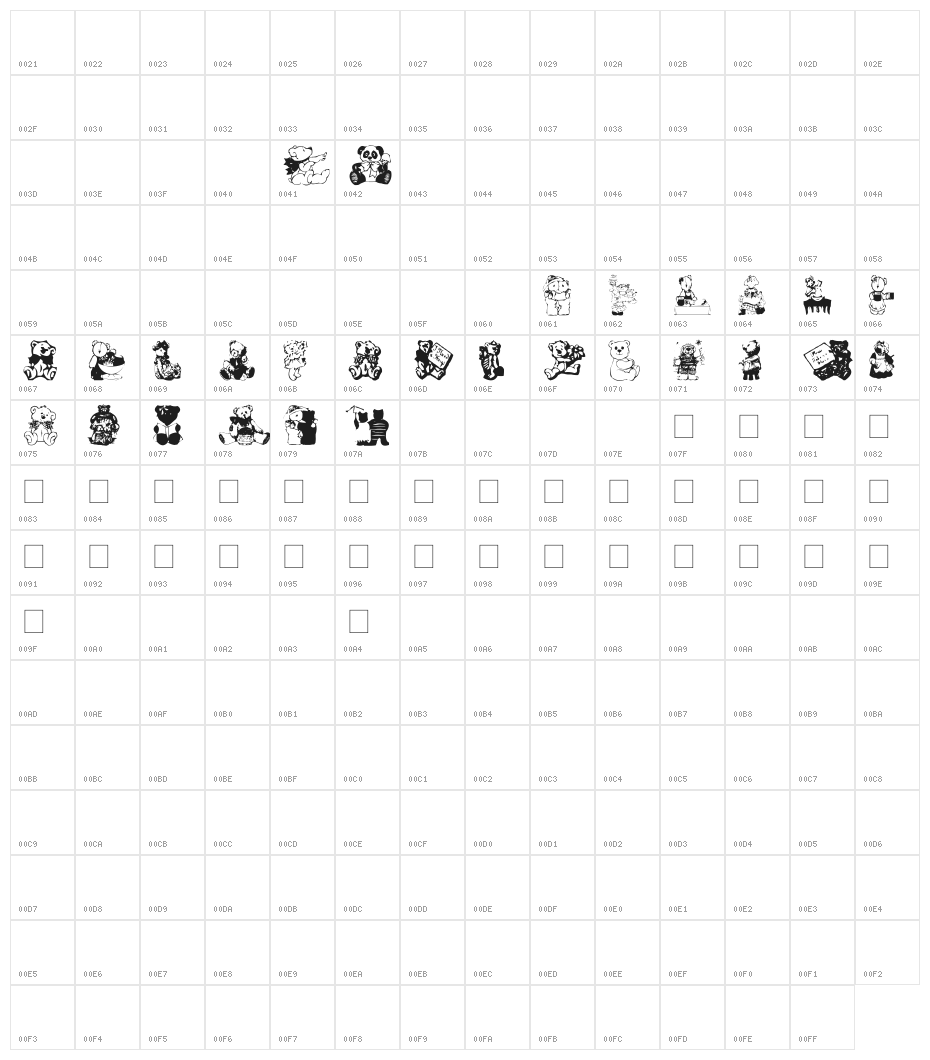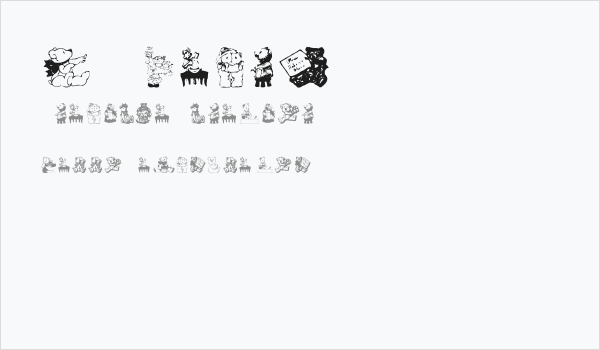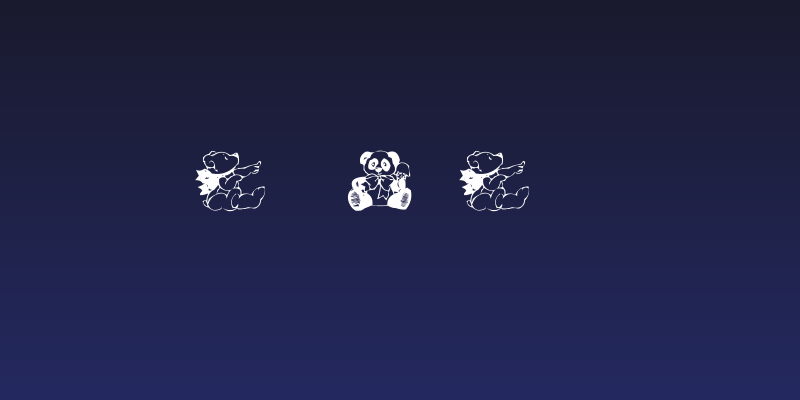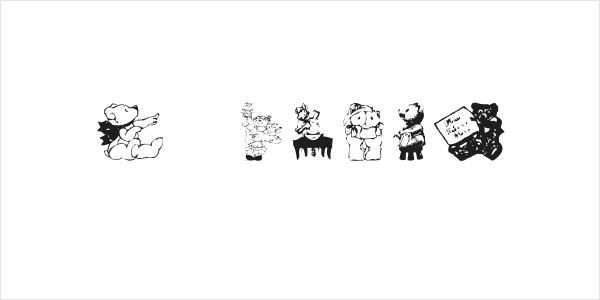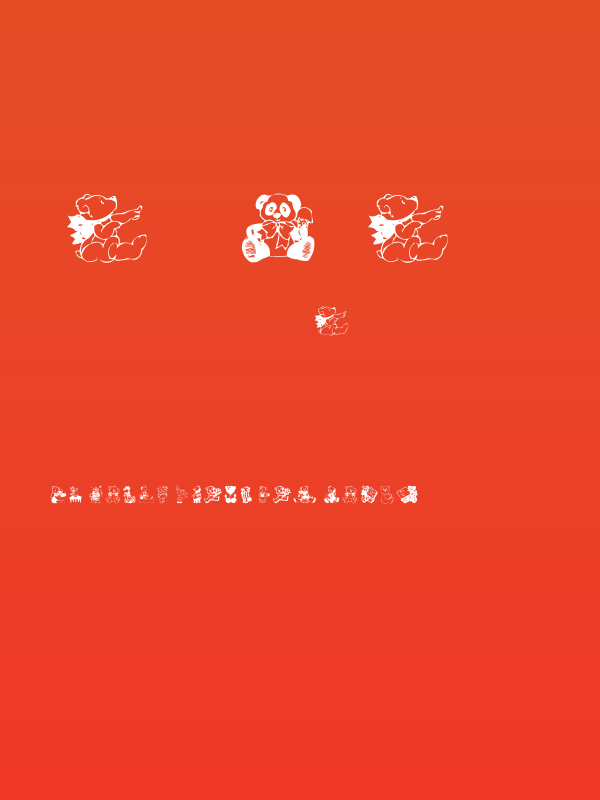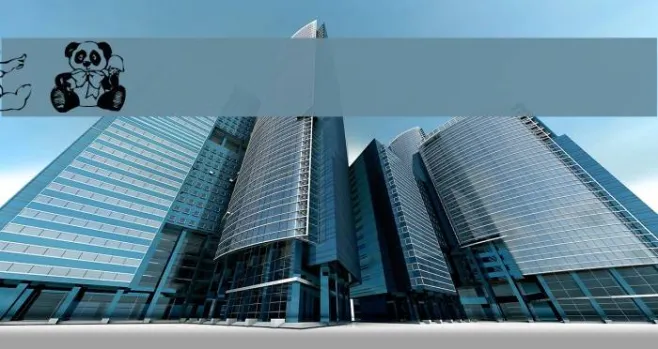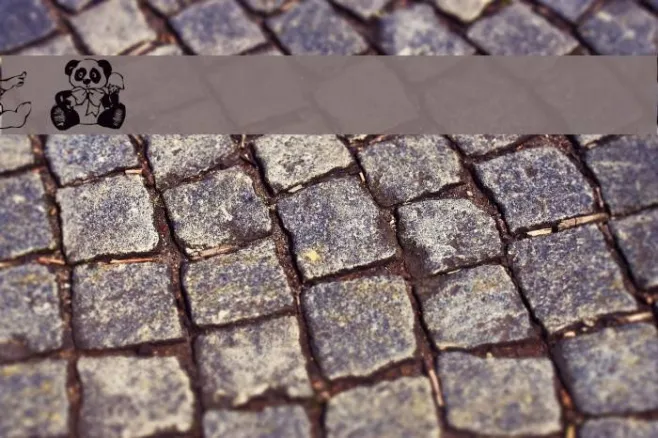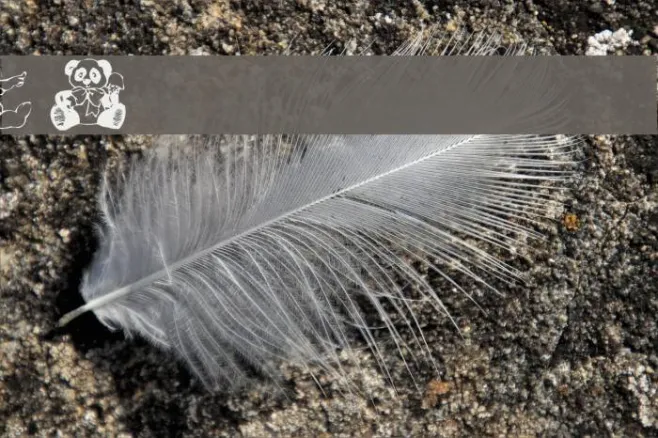
AEZbears Font
AEZbears Description
This is a decorative font featuring a variety of bear illustrations, each representing a different character. The bears are depicted in various playful and whimsical poses, adding a unique and charming touch to the font. Each character is intricately designed, showcasing detailed features and expressions that bring a sense of fun and creativity. The font is highly illustrative, making it more of a visual art piece than a traditional typeface. It is perfect for projects that require a playful and engaging aesthetic.
| Overall Style | Playful, Whimsical, Decorative |
| Use Case | Logos, Decorative headings, Children's materials |
| Proposed Projects | Ideal for children's books, playful greeting cards, themed party invitations, and educational materials for young audiences. |